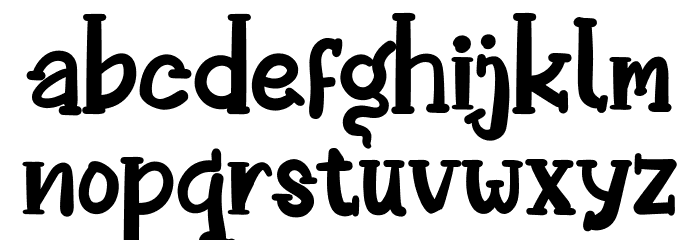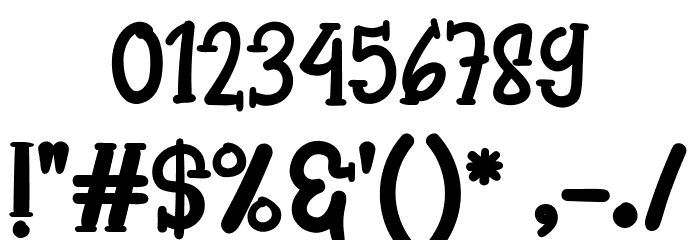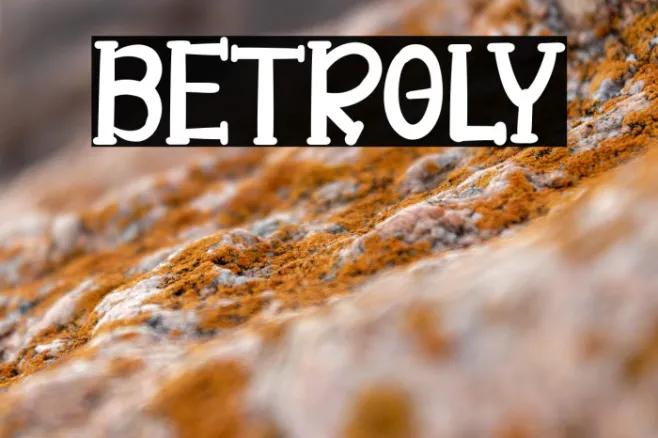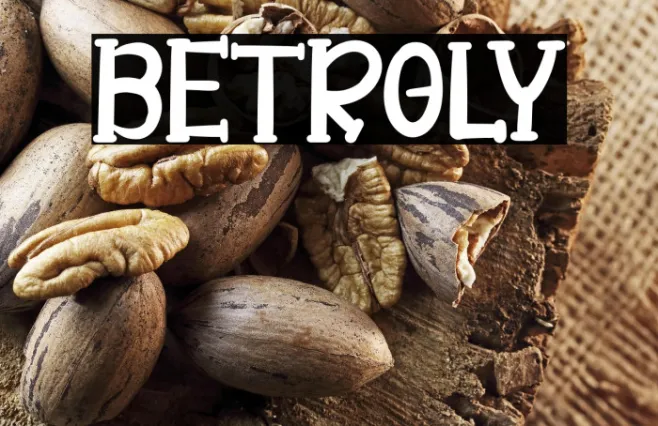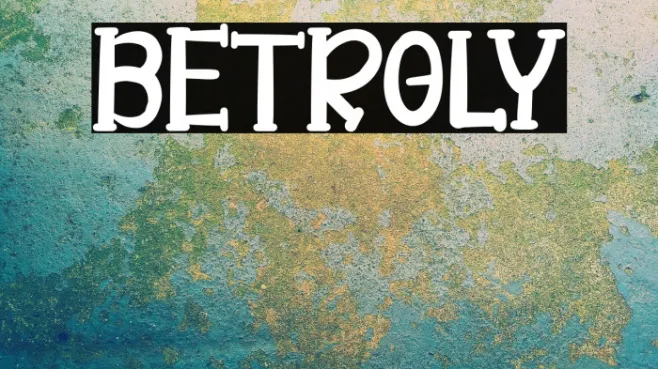
BETROLY Font
This font features a playful and whimsical style with a hand-drawn appearance. The characters are bold and slightly irregular, giving them a unique and informal look. The uppercase and lowercase letters maintain a consistent style, with rounded edges and varying stroke thicknesses that add to the font's charm. Numbers and special characters are designed to match the playful aesthetic, making this font suitable for creative and casual projects. The overall design is eye-catching and stands out with its decorative elements.
A playful, hand-drawn font with bold, irregular strokes and a whimsical style.
- Proposed Projects: Ideal for children's books, playful branding, greeting cards, and creative posters.
- Overall Style: Whimsical, Playful, Decorative